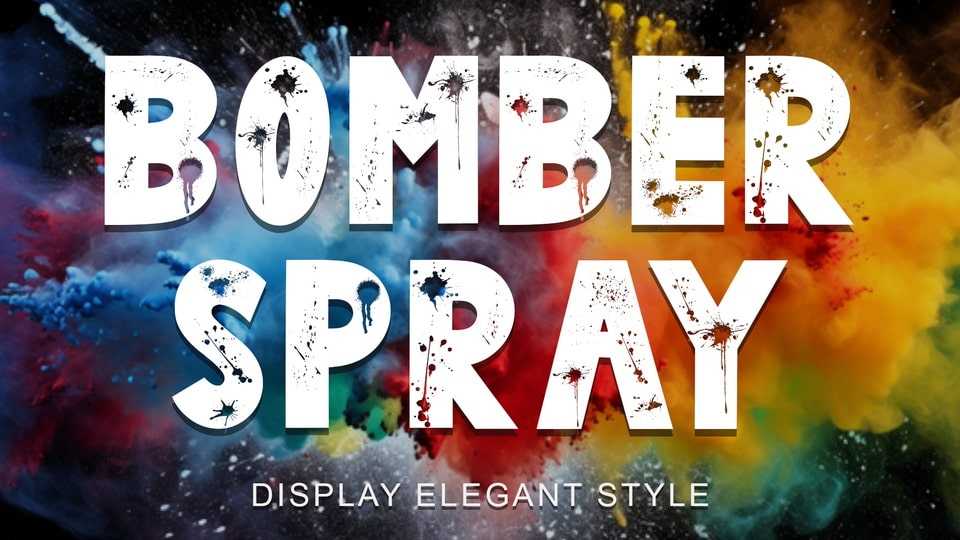
Download Bomber Spray font, a display typeface with a spray paint pattern. Very suitable for use for easter, spring, summer, Halloween, posters, prints, branding, stickers, logos, banners and others.